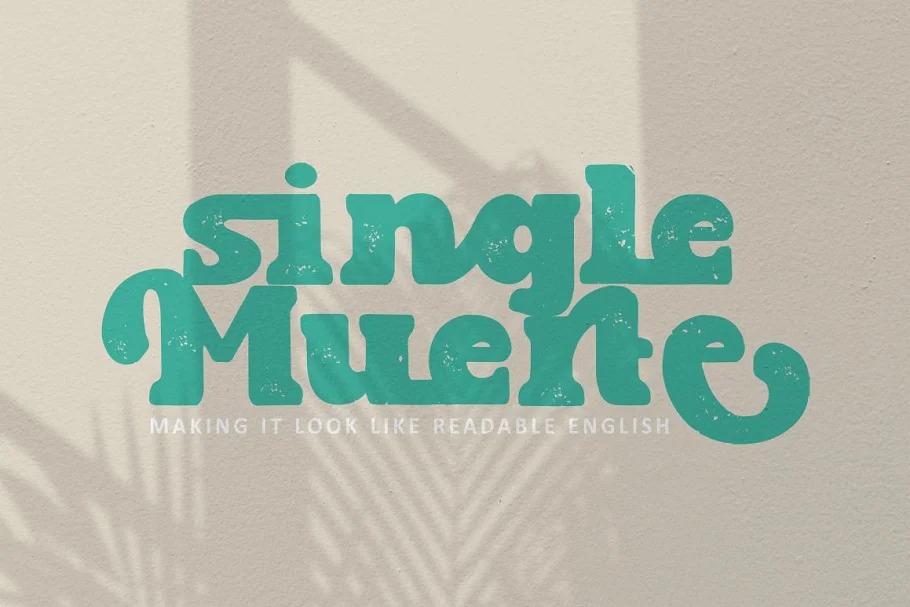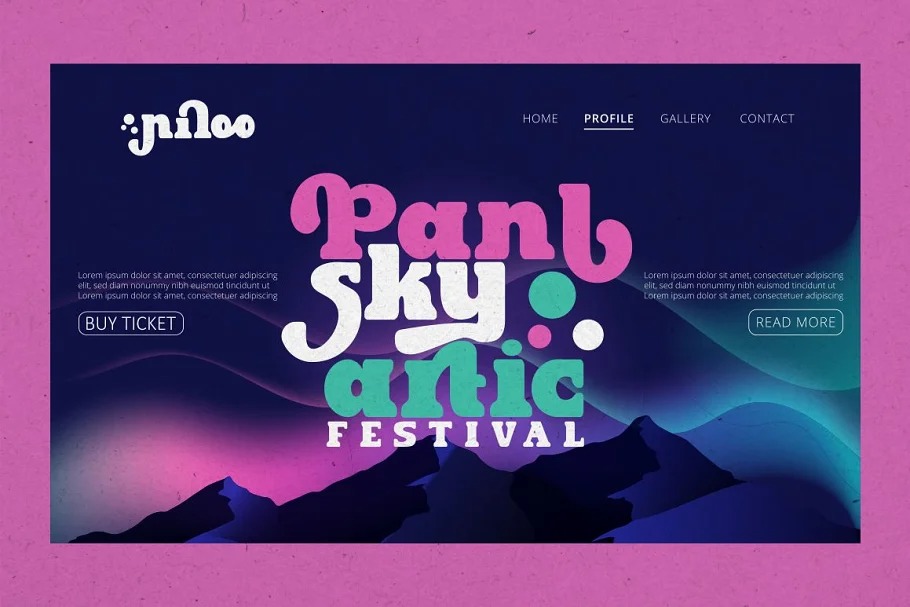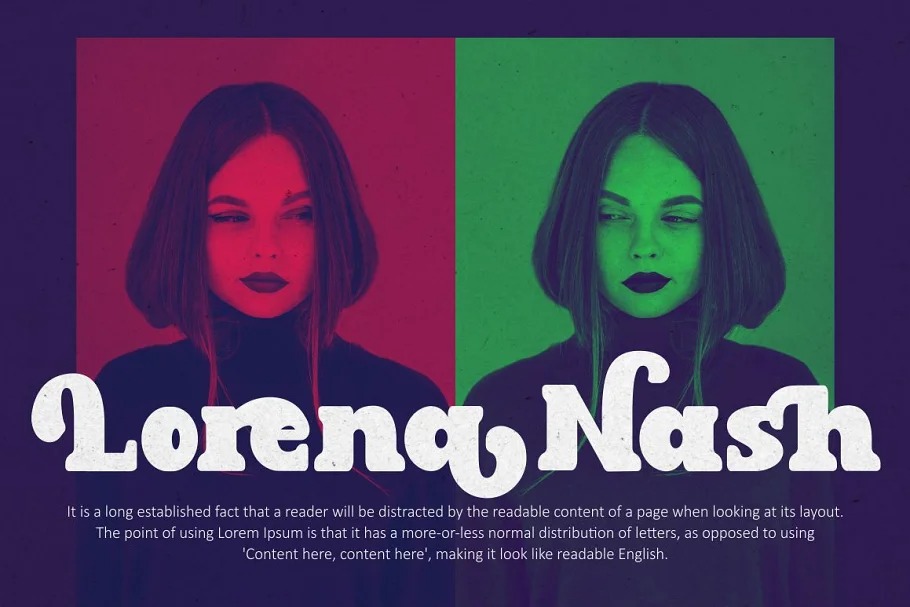
East Aurora Display Font
This is a bold vintage display typeface created by PutraCetol Studio with a remarkable art nouveau flair. East Aurora is equipped with Swash, Stylistic and Titling alternates as well as with Standard and Discretionary Ligatures
And this font East Aurora is a stylish font that is both retro and bold font. It’s thick curves give a 70s groovy vibe with the serifs bringing it slightly back to traditional. Comes with alternatives and ligatures, helps to create stunning logos, quotes, posts, blog posts. branding projects, magazine imagery, wedding invitations, and much more.